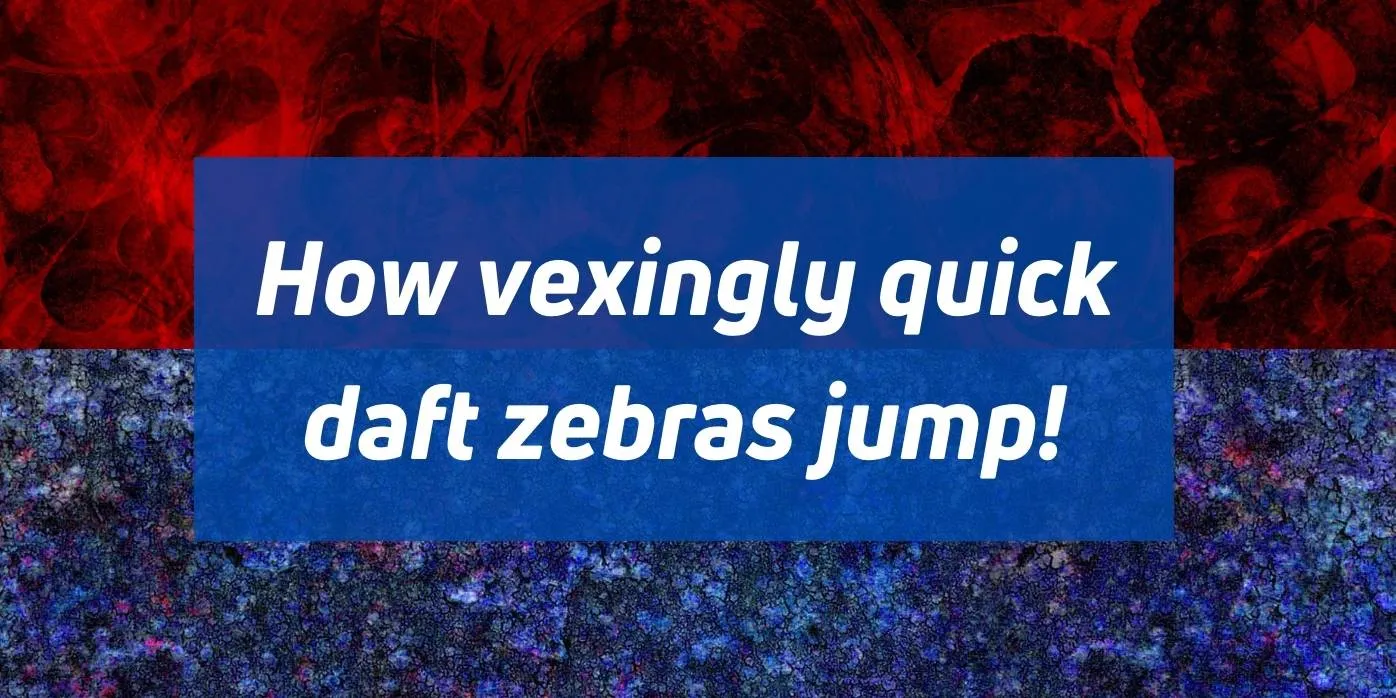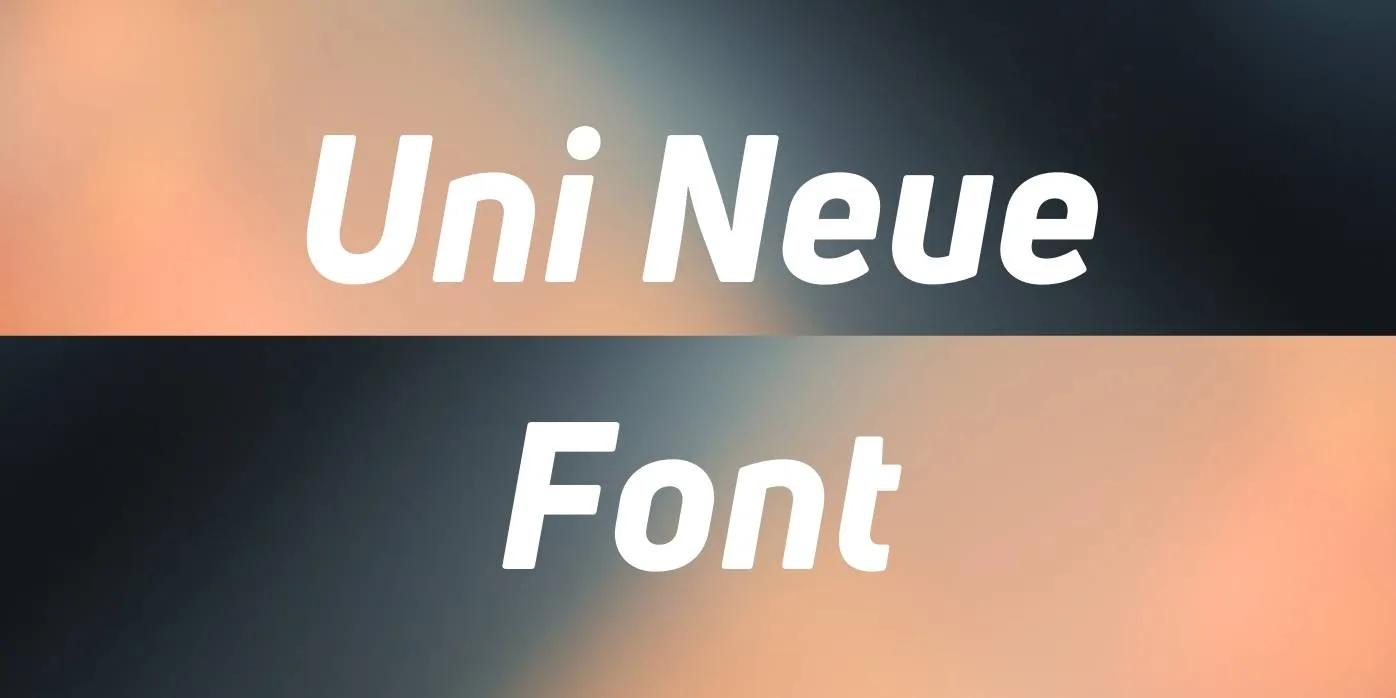
Uni Neue Font
Here, we present a new San-Serif typeface that has the name Uni Neue Font. This attractive font was designed by very famous designers Svetoslav Simov and Plamen Motev. Its classic shapes and special characters make this typeface popular and famous for different projects. This typeface is best for various types of other tasks like Adobe Photoshop, Adobe Illustrator, and many others.
Its uppercase and lowercase letters make this gorgeous font family perfect for different designs. The reason for its uniqueness is that it has very amazing and powerful characters. Because of its high letters and strong Glyphs, this marvelous typeface is best for use in different fields. If you want to get a good response from all of your users then you can use this typeface in all of your workplaces.